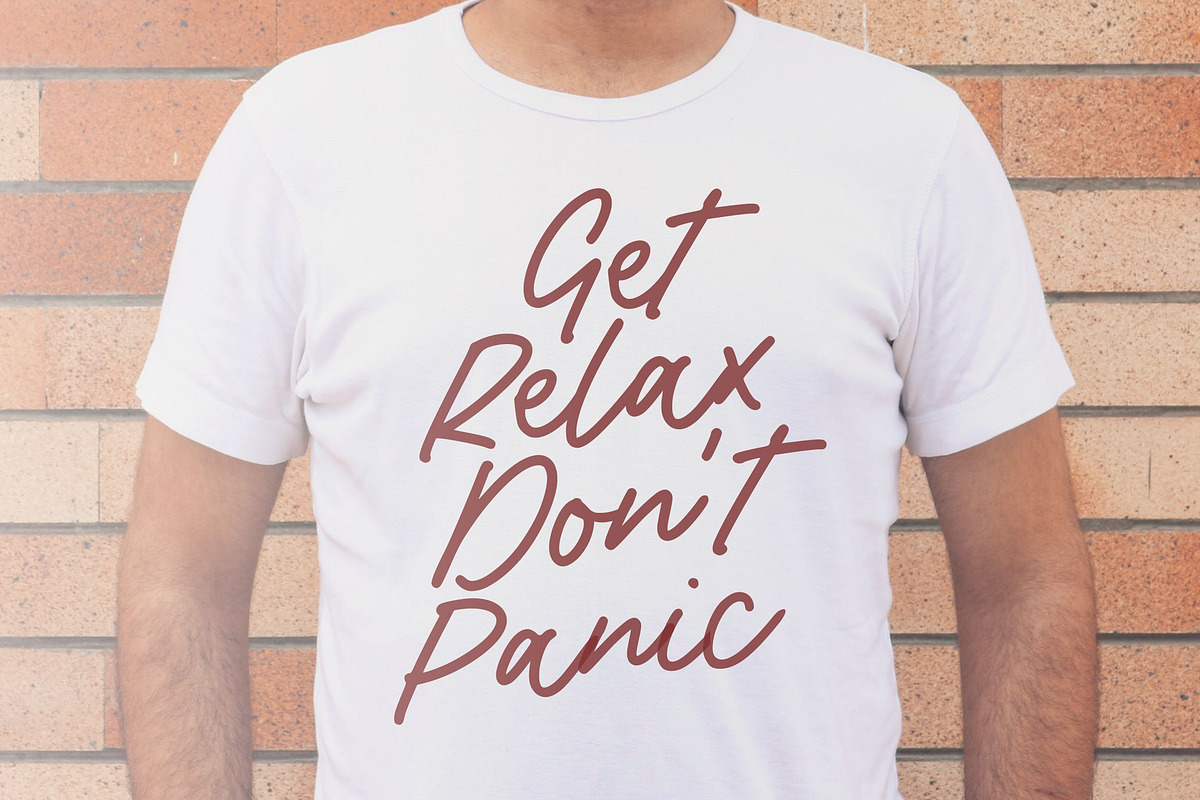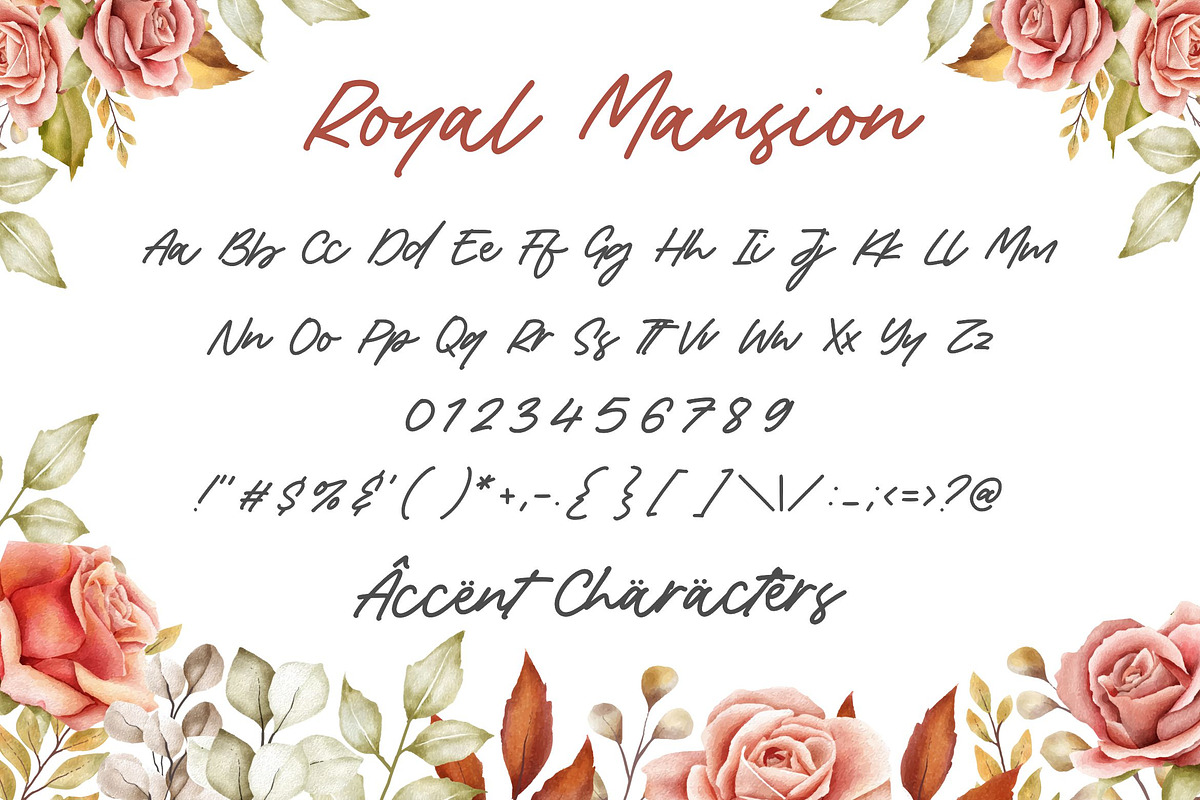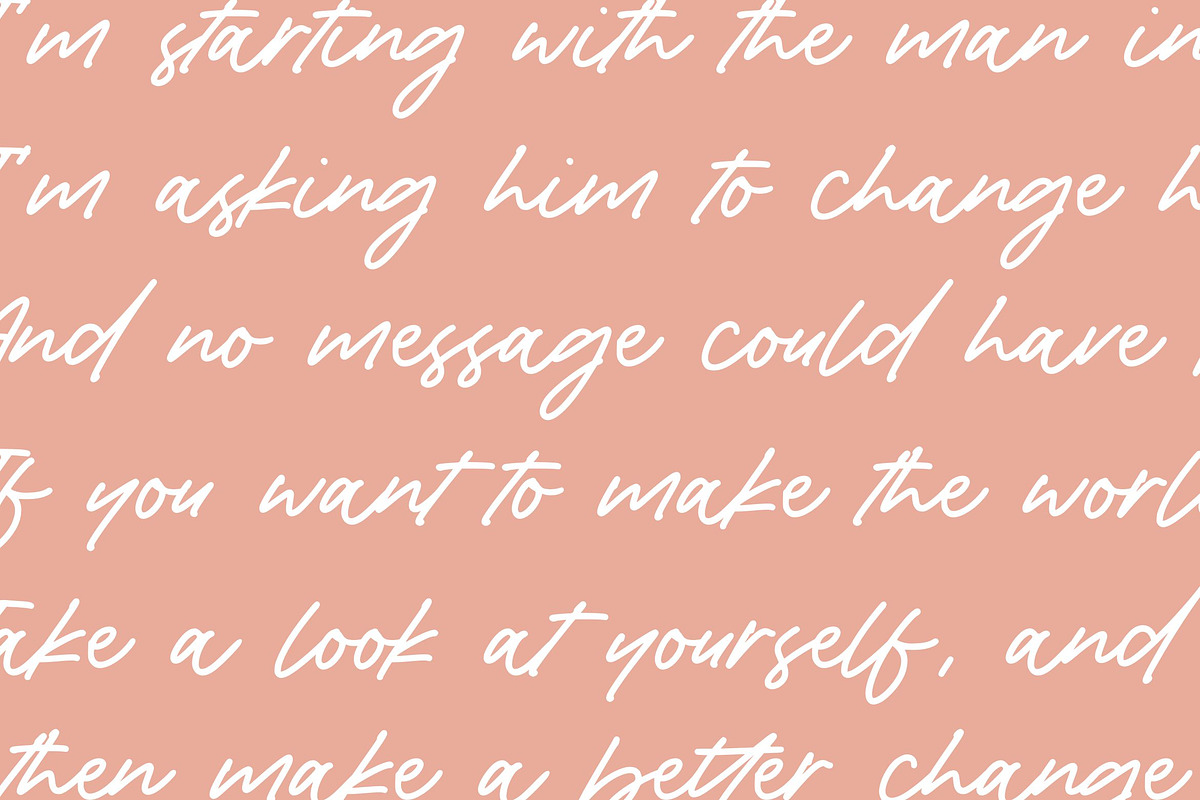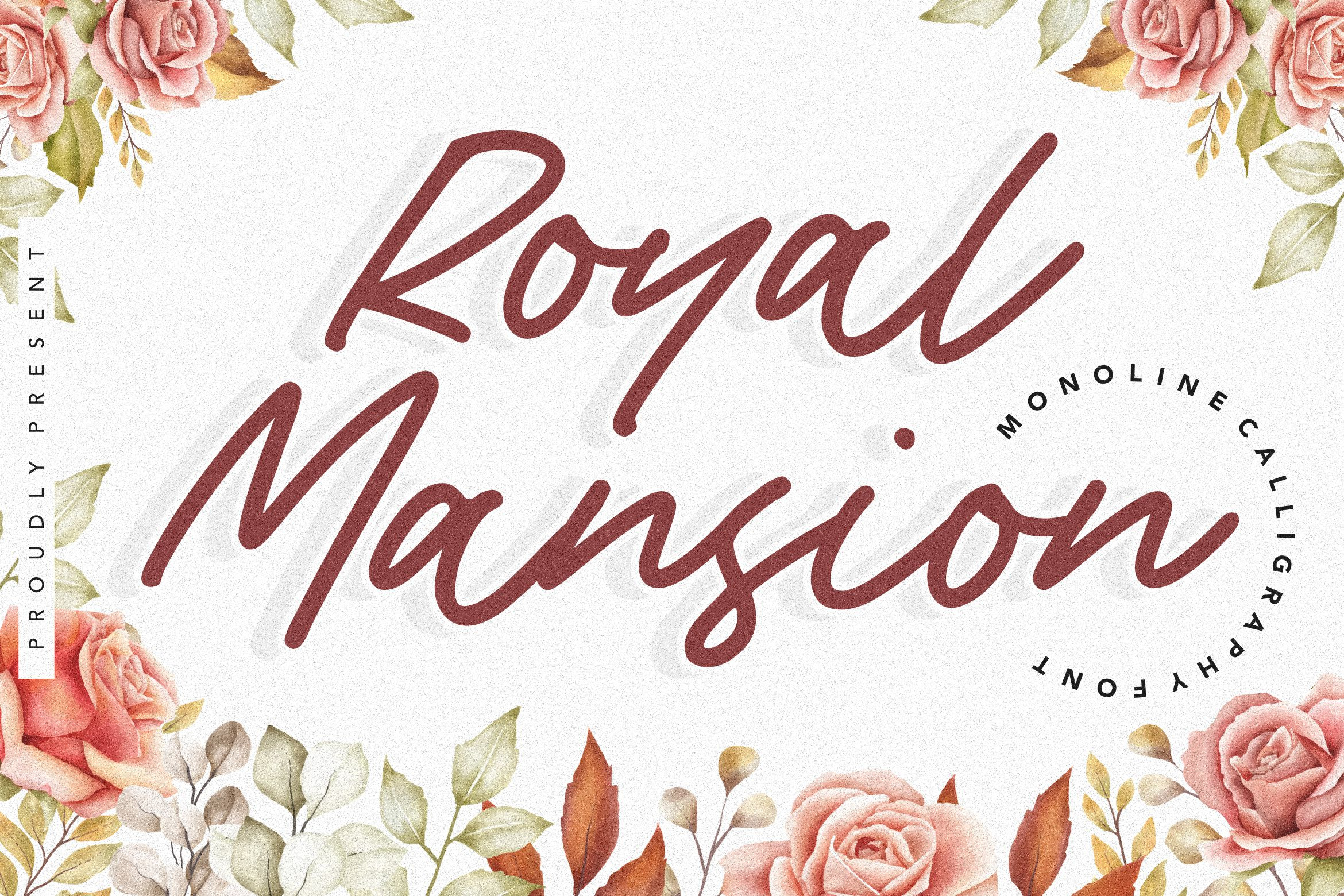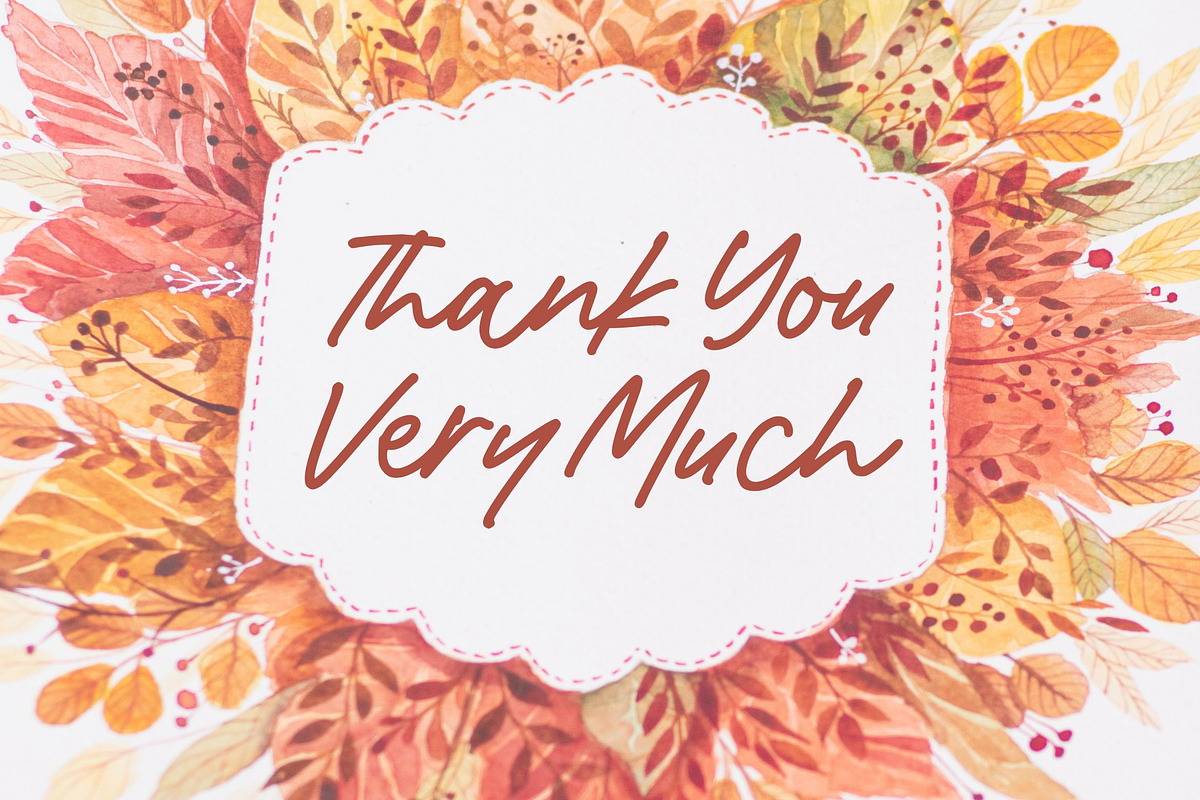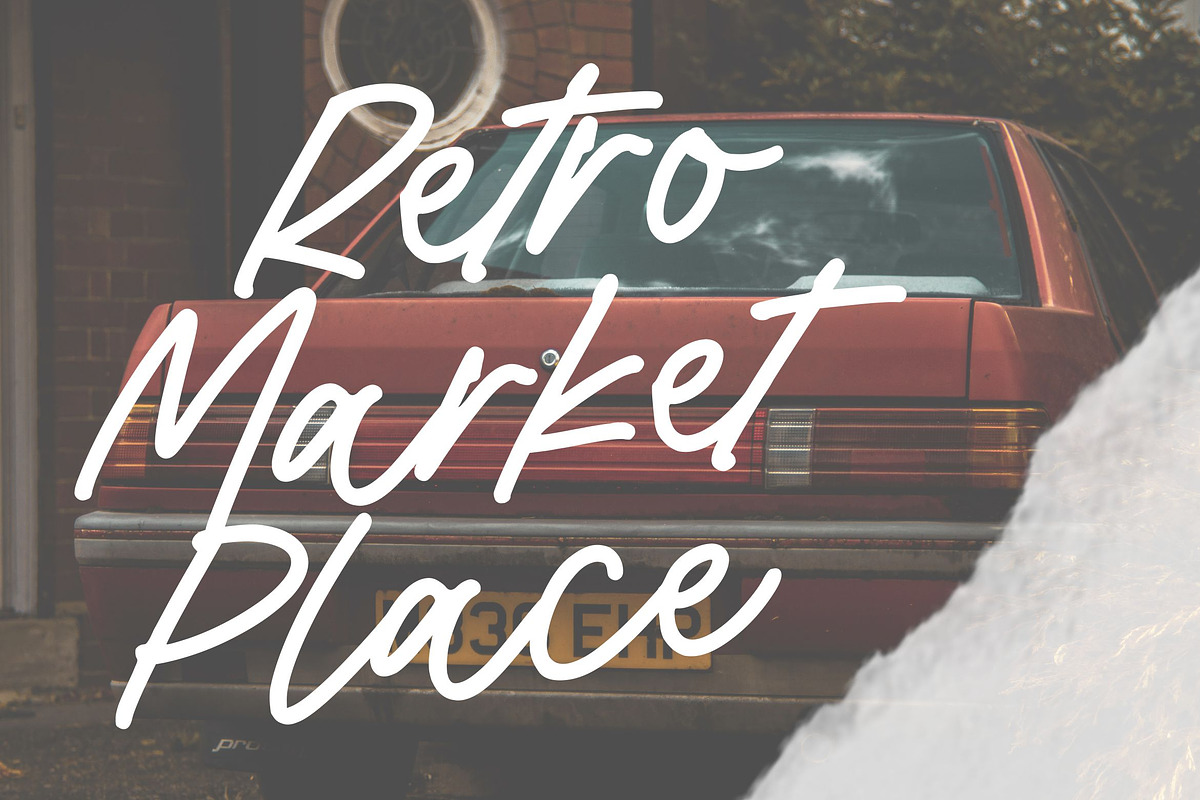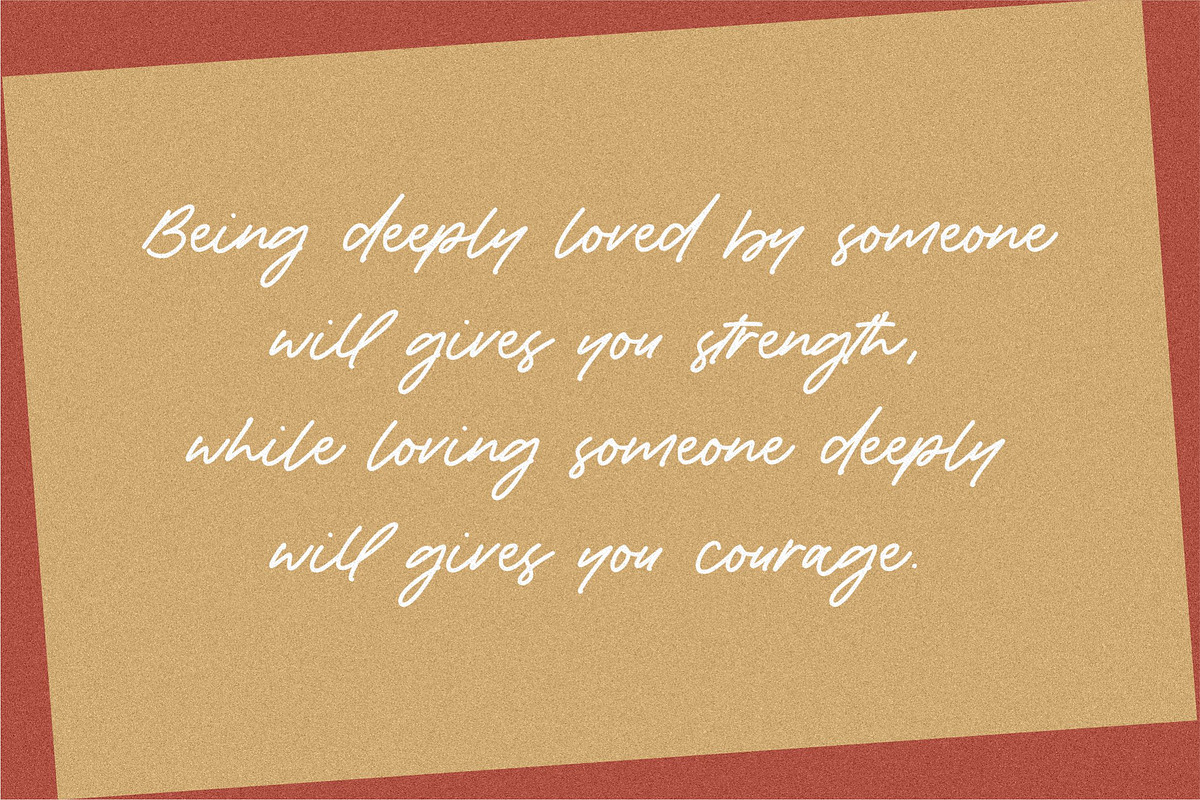
Royal Mansion - Monoline Font
Proudly Present, Royal Mansion Font
Royal Mansion is a flowing handwritten font, described by an elegant touch, perfect for your favorite projects. Fall in love with its incredibly distinct and timeless style and use it to create spectacular designs!